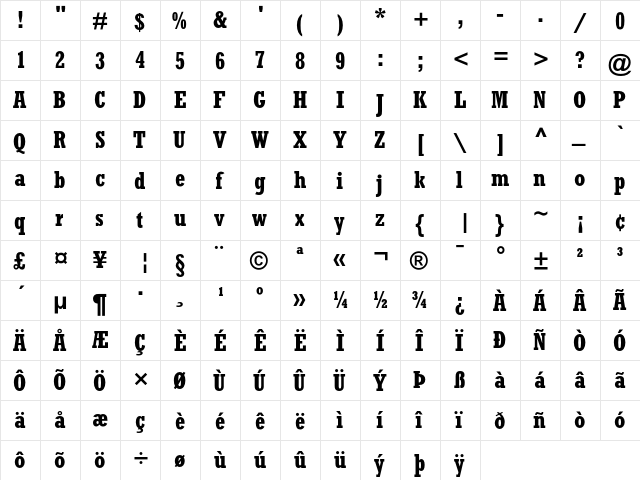
Rockwell Bold Condensed
Design Context for Rockwell Typeface
Rockwell is a composed and adaptable typeface that performs quietly and consistently across a wide range of design contexts. The heavy weight commands attention and anchors typographic hierarchies. The condensed width makes it efficient for tight spaces without sacrificing legibility.